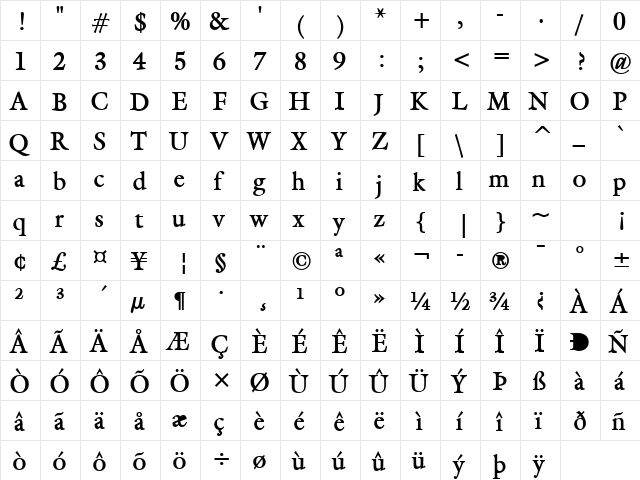
Galant Bold
Design Context for Galant Typeface
Galant offers clean, dependable letterforms without strong stylistic allegiance, making it a practical choice for designers who need flexibility. Its bold stroke weight gives it real presence on the page.
Pro Tip: Use Galant in both headline and body roles to test its range before committing to a single application.